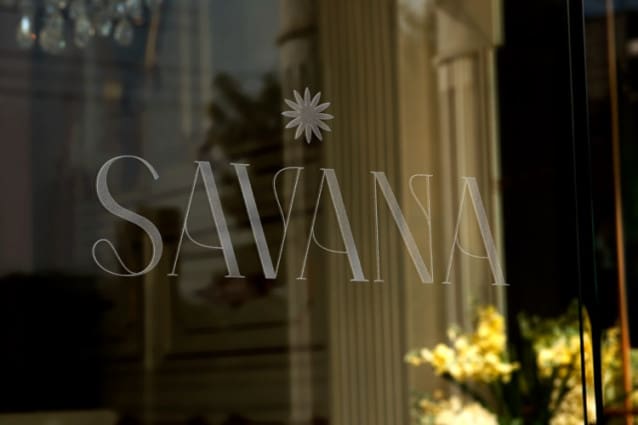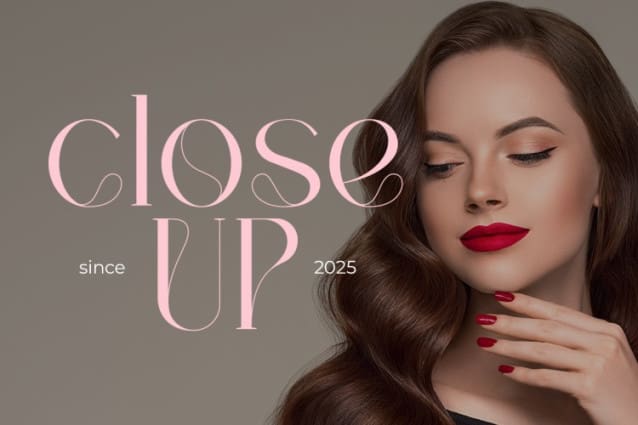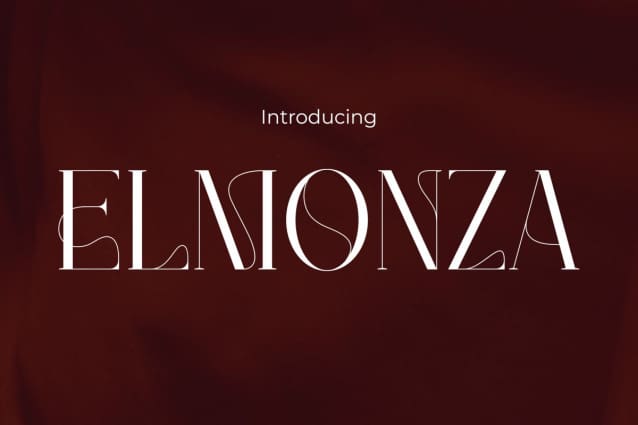
Elmonza Font
Elmonza Font transcends the conventional notion of a font; it is a typographic masterpiece that embraces timeless elegance, contemporary flair, and feminine allure. With an enduring touch of elegance and a refreshing modern vibe, “Elmonza Font” seamlessly blends classical beauty with captivating modernity. Each letter is meticulously chosen to achieve a perfect harmony between sophistication and a modern, feminine allure. Available in diverse variations and styles, this font provides limitless flexibility to tailor your design according to your vision. Whether for promotional materials or creative projects emphasizing femininity, “Elmonza” adds an exclusive and unique touch to every design element. Don’t miss the opportunity to own “Elmonza” and infuse your designs with an elegant, fashionably modern, and feminine charm! beauty!